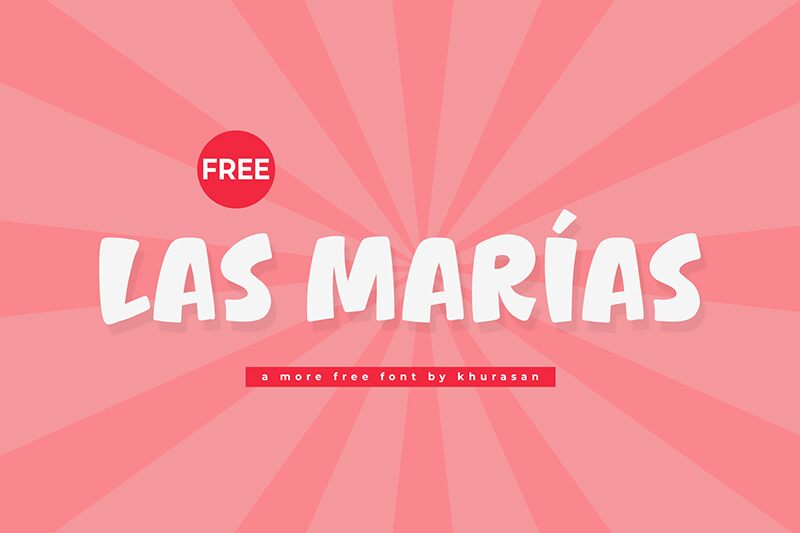
Las Marias
Las Marias font by Khurasan is a bold cartoon display font with casual letters and organic elements. With a slight geometric influence, the typeface has a modern aesthetic and cohesive proportions that make up its characters. This free font will give readers a relaxed feeling and designers an easy-to-use creative tool for their projects.
Las Marias is usable in multiple design works like product packaging, online advertising, social media images, comic book covers and content, movie posters, or apparel designs. Try it also in designing tattoos, gaming interfaces, headlines in printed magazines, or children’s books.